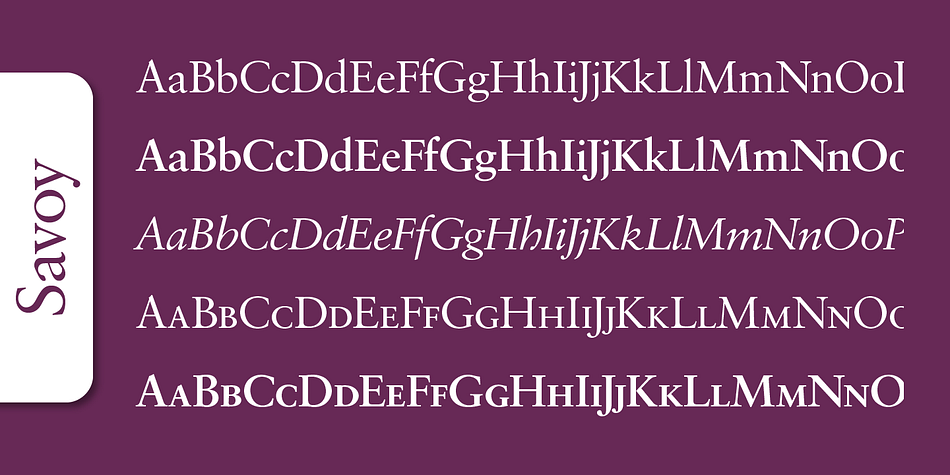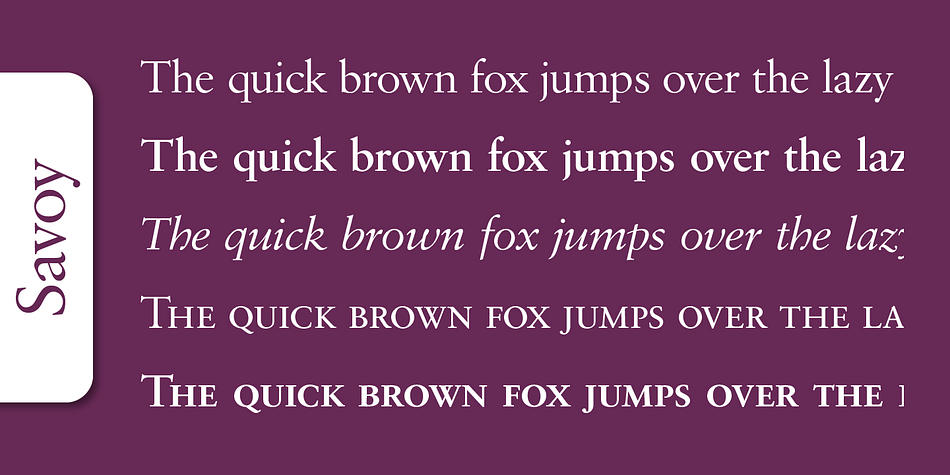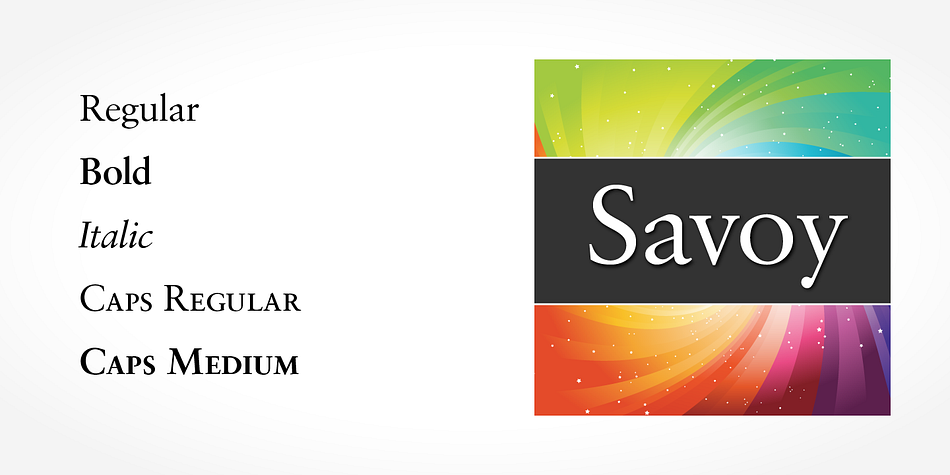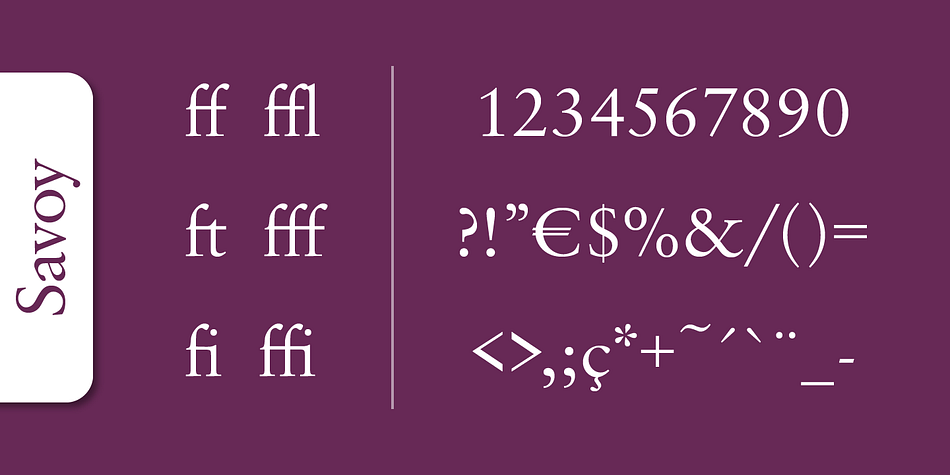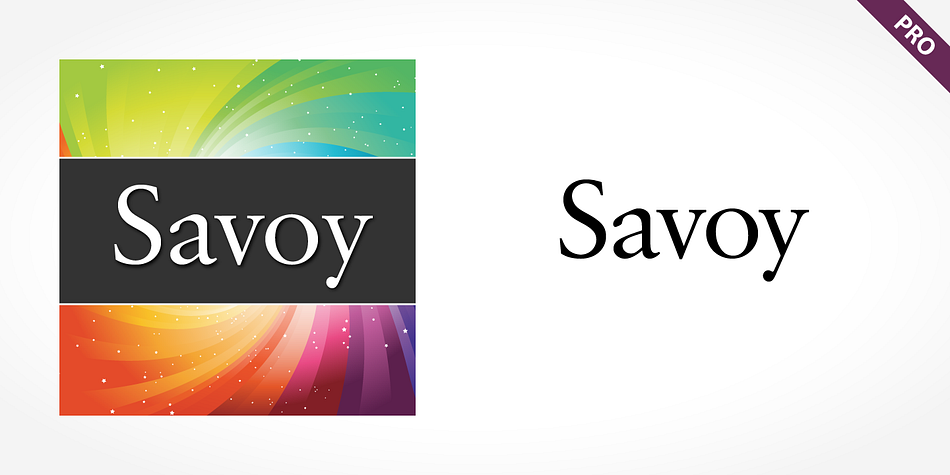
Savoy Pro
Savoy Pro is a serif font family. This typeface has five styles and was published by SoftMaker.
Classic, elegant, and extremely legible, Savoy Pro is one of the most beautiful Garamond variations. Always a good choice for book typography, the Savoy Pro family is also particularly good for text and headlines in magazines, advertisements, documentation, business reports, corporate design, multimedia, and correspondence.
Savoy Pro combines well with:
Sans serif fonts such as Frutiger, Syntax.
Slab serif fonts such as PMN Caecilia, Clairvaux.
Fun fonts such as Grafilone, Animalia, Araby Rafique.